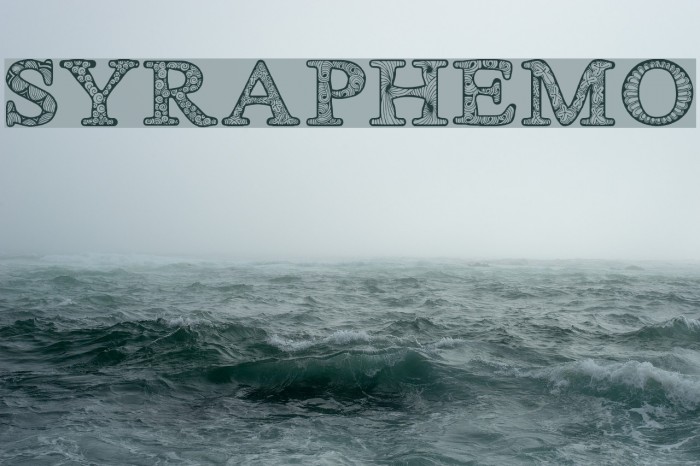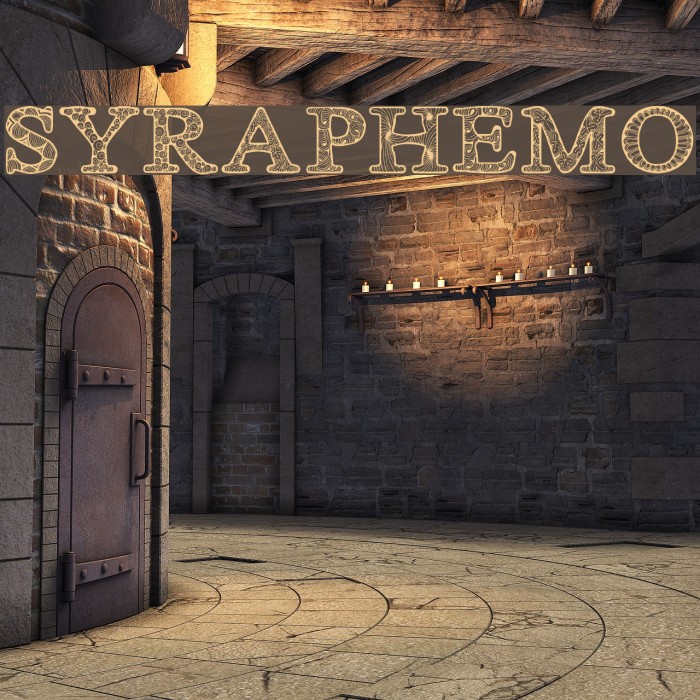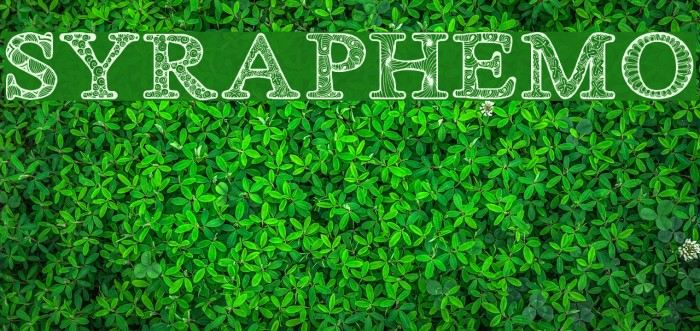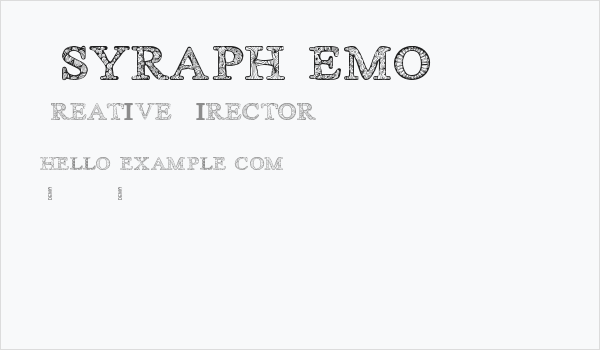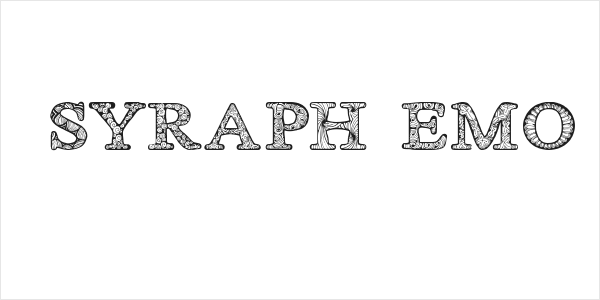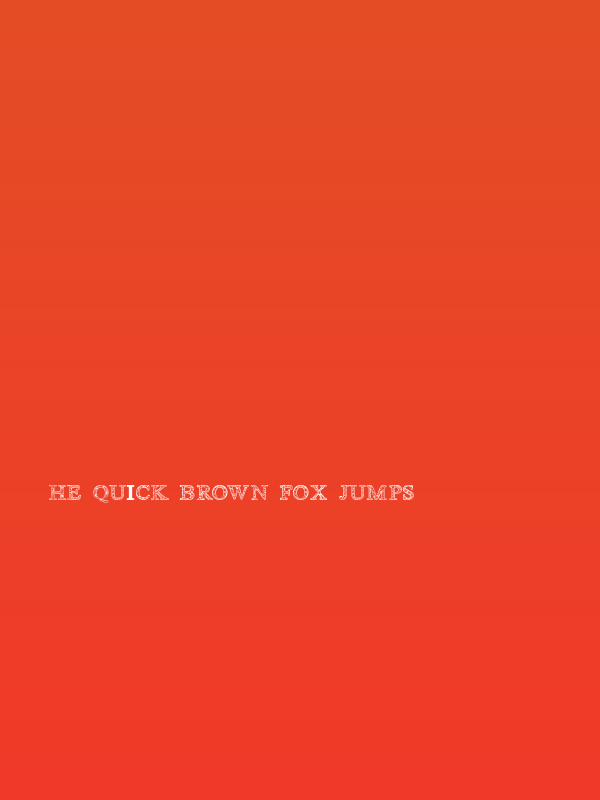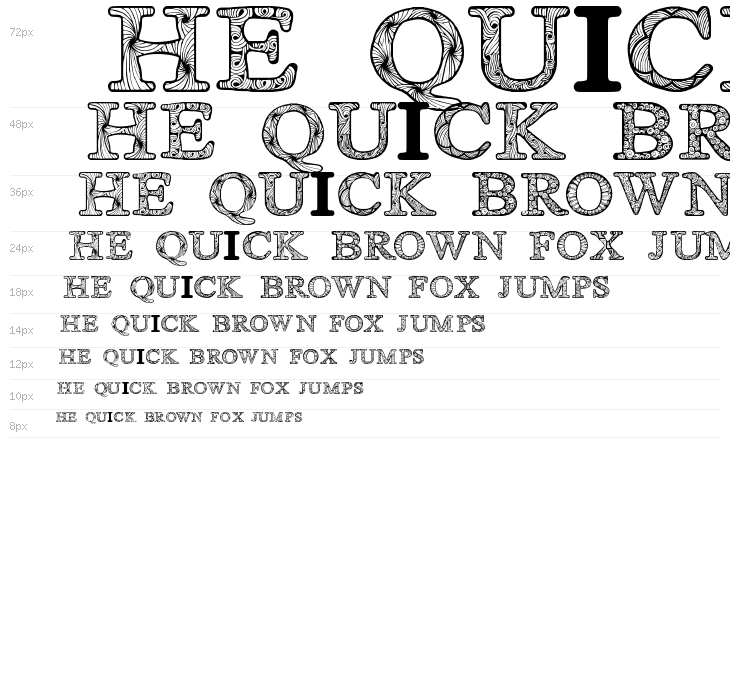
ZsyraphDemo Font
ZsyraphDemo Description
This font features an intricate and decorative design, with each letter adorned with detailed patterns that resemble scales or textures. The uppercase letters are bold and prominent, making them ideal for attention-grabbing headlines or artistic projects. The overall style is unique and creative, with a playful yet sophisticated appearance. The font's distinctiveness makes it suitable for projects that require a touch of elegance and creativity, such as invitations, posters, or branding materials.